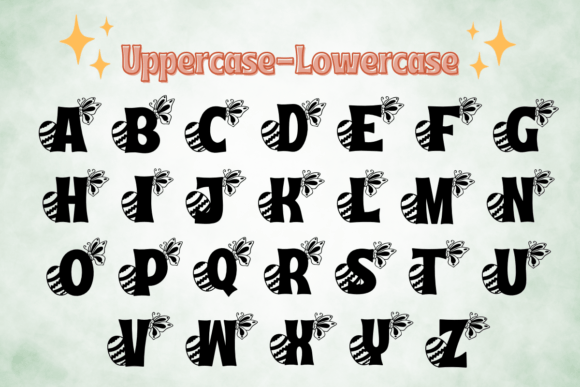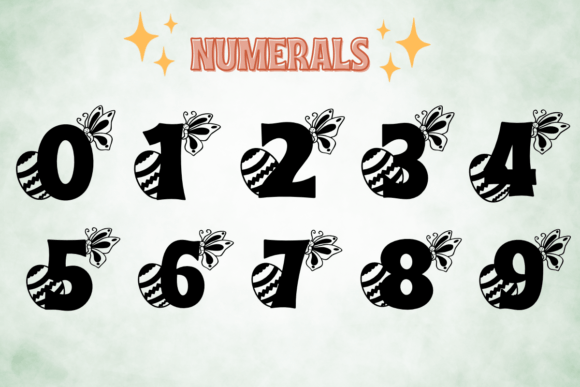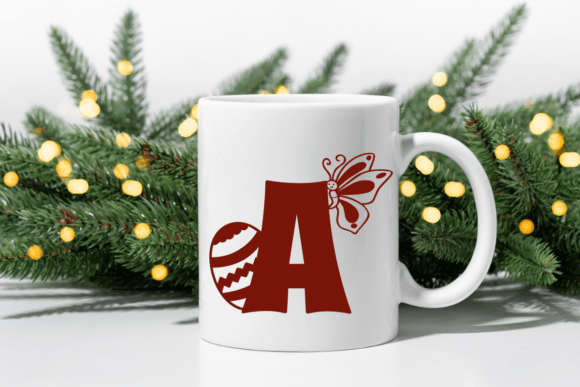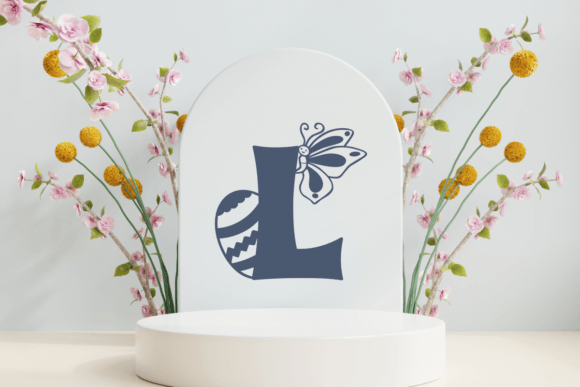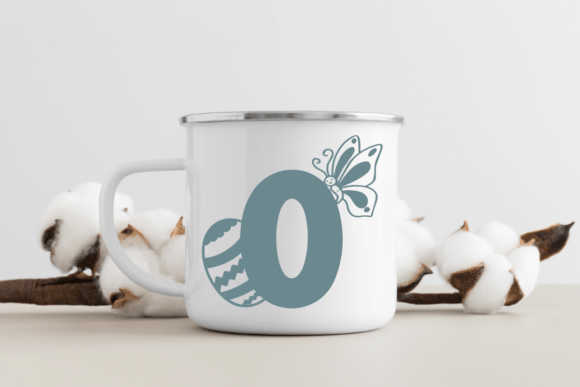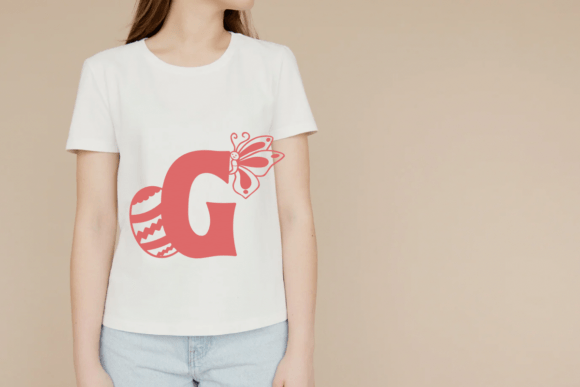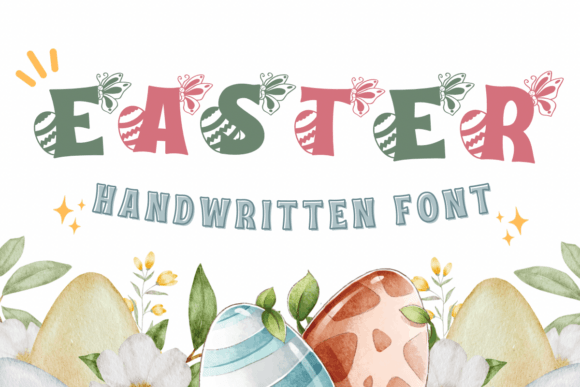
Easter Font: Add a Touch of Whimsy to Your Holiday Designs
Are you looking for a font that captures the festive spirit of Easter? Look no further than Easter Charm, a whimsical and decorative font that’s perfect for holiday projects, invitations, banners, and greeting cards. This charming typeface is infused with Easter-themed details like eggs, butterflies, and playful accents, making it a great addition to any design.
The Perfect Font for Easter Designs
Easter Charm is a unique and eye-catching font that’s sure to add a cheerful and seasonal vibe to your designs. The font features intricate details and ornate embellishments that evoke the feeling of Easter. Each letter is carefully crafted to resemble Easter-themed elements, such as eggs, butterflies, and spring flowers. The result is a font that’s both playful and elegant, making it perfect for a wide range of design projects.
Key Features of Easter Charm Font
- Whimsical and decorative design: Easter Charm features a unique and playful design that’s perfect for Easter-themed projects.
- Easter-themed details: Each letter is adorned with Easter-themed details like eggs, butterflies, and playful accents.
- Perfect for holiday projects: Easter Charm is ideal for holiday projects, invitations, banners, and greeting cards.
Ideas for Using Easter Charm Font
Easter Charm is a versatile font that can be used in a variety of design projects. Here are a few ideas to get you started:
- Easter invitations: Use Easter Charm to create custom invitations for Easter parties, egg hunts, and other holiday events.
- Easter banners: Create eye-catching banners for Easter displays, decorations, or social media posts.
- Easter greeting cards: Add a personal touch to your Easter greeting cards with Easter Charm.
- Easter crafts: Use Easter Charm to create custom titles, headings, and text for Easter-themed crafts, such as paper crafts, scrapbooking, and DIY projects.
Tips for Using Easter Charm Font
Here are a few tips for using Easter Charm font in your designs:
- Use it sparingly: Easter Charm is a decorative font, so use it sparingly to add emphasis and visual interest to your designs.
- Pair it with a simple font: Pair Easter Charm with a simple font to create contrast and make your design more readable.
- Experiment with colors: Easter Charm looks great in bright, pastel colors, but feel free to experiment with different colors to match your brand or design style.
Easter Charm is a unique and charming font that’s perfect for adding a touch of whimsy to your Easter designs. With its Easter-themed details and playful design, this font is sure to bring a smile to your customers’ faces. Whether you’re a designer, crafter, or DIY enthusiast, Easter Charm is a great addition to your font collection.